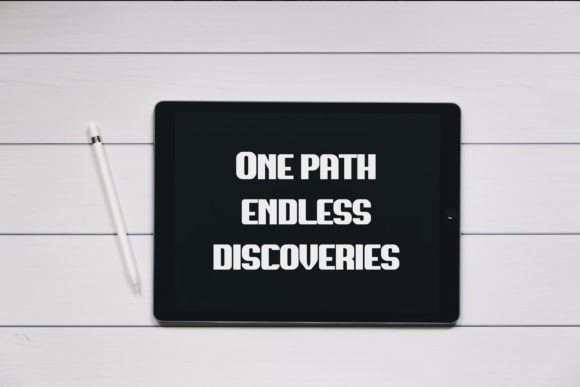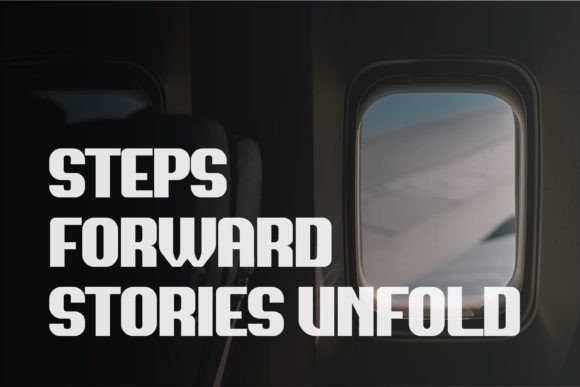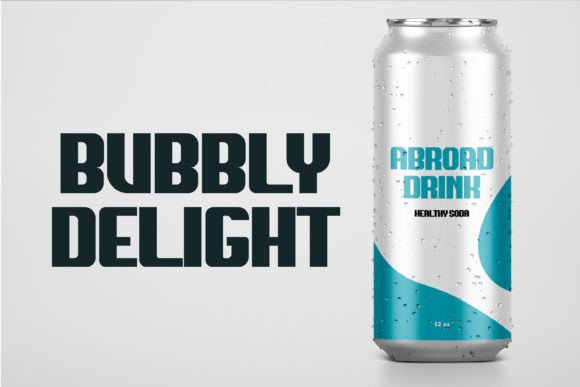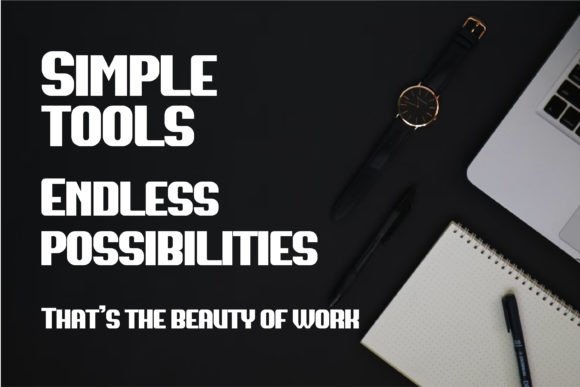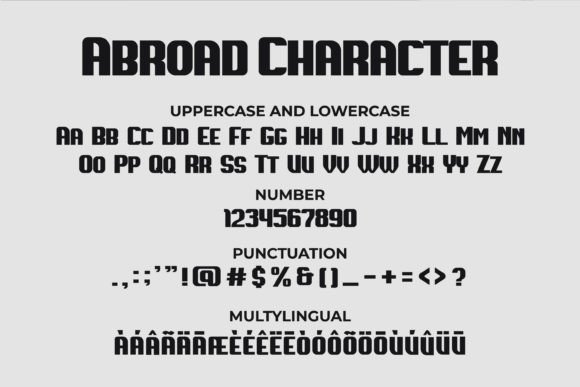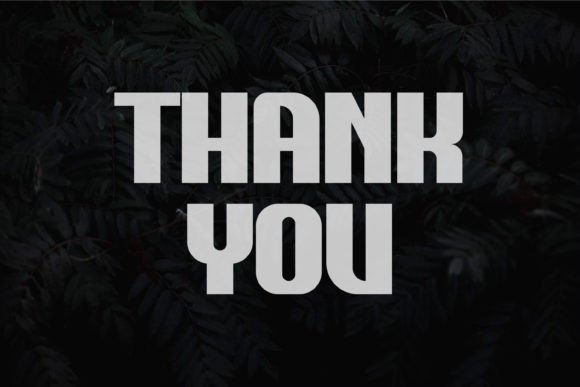
Introducing “Abroad Bold Font” – Your Gateway to Distinctive Typography!
I’ll never forget the design project that led me to discover Abroad Bold Font. I was working on a branding campaign for a trendy new coffee shop, and my client specifically asked for a bold, eye-catching font that would make their logo stand out. I spent hours scouring font libraries and trying out different typefaces, but nothing seemed quite right. That was until I stumbled upon Abroad Bold Font – a game-changer that instantly elevated my design to the next level.
Unleashing the Power of Abroad Bold Font
Abroad Bold Font is more than just a typeface – it’s a design statement. This dynamic font is meticulously crafted to help you make a bold impact with your designs. Whether you’re a seasoned designer or a budding creative, Abroad Bold Font is your ultimate tool for adding a touch of sophistication and style to your work.
- ✨ Unique Character: Abroad Bold Font has a distinctive personality that sets it apart from more generic typefaces.
- ✅ Versatility: This font works beautifully for both digital and print projects, from logos and branding to posters and social media graphics.
- 💡 Legibility: Despite its bold nature, Abroad Bold Font remains surprisingly legible, even at smaller sizes.
- 🎨 Customization Options: With OpenType features and stylistic alternates, you can tailor Abroad Bold Font to suit your design needs.
While Abroad Bold Font is an exceptional typeface, there are a few things to keep in mind:
- 🤔 Limited Use Cases: Due to its bold nature, Abroad Bold Font may not be the best choice for body text or longer blocks of content.
- ⚠️ Glyph Limitations: Some users have reported that certain glyphs or special characters may not be available in Abroad Bold Font.
Abroad Bold Font was inspired by the dynamic typography of international signage and travel posters. Its creator aimed to craft a font that captures the essence of exploration and adventure while maintaining readability and style.
Q: What makes Abroad Bold Font unique?
A: Abroad Bold Font boasts a distinctive personality with clean lines and a bold presence, making it perfect for headlines and titles.
Q: Does Abroad Bold Font support OpenType features?
A: Yes, Abroad Bold Font includes OpenType features and stylistic alternates, allowing for a high degree of customization.
Q: Is Abroad Bold Font suitable for body text?
A: While Abroad Bold Font is primarily designed for headlines and titles, it can be used for short paragraphs. However, its bold nature may not be ideal for longer blocks of text.